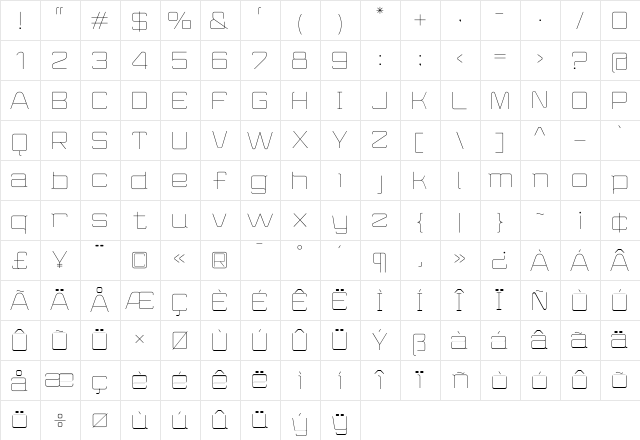
Wired Light
Design Context for Wired Typeface
Wired takes a measured approach to typography — its balanced proportions and neutral character make it a reliable workhorse for both digital and print work. Its slender proportions lend an understated elegance to any composition.